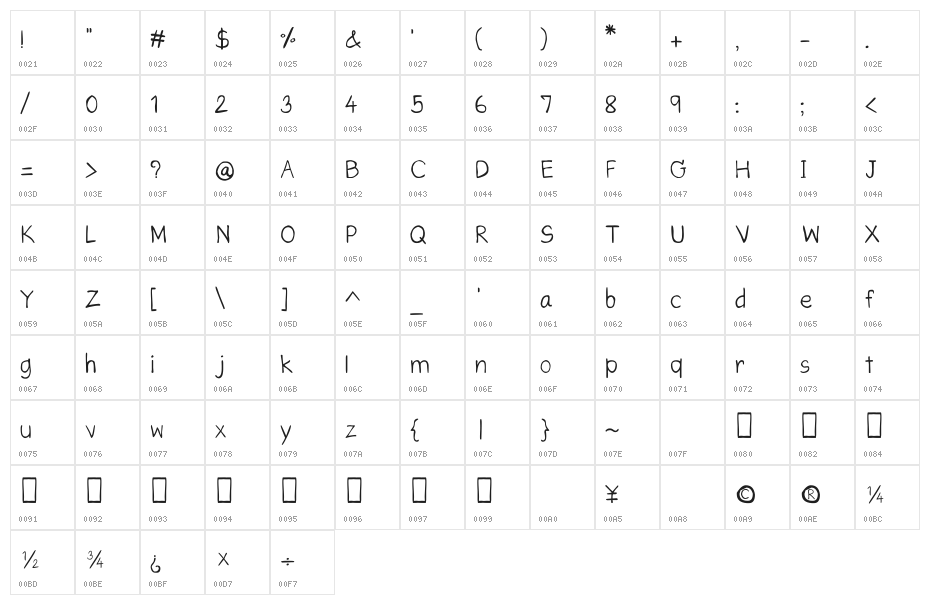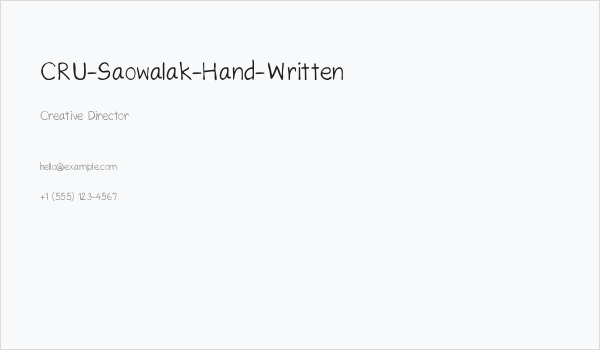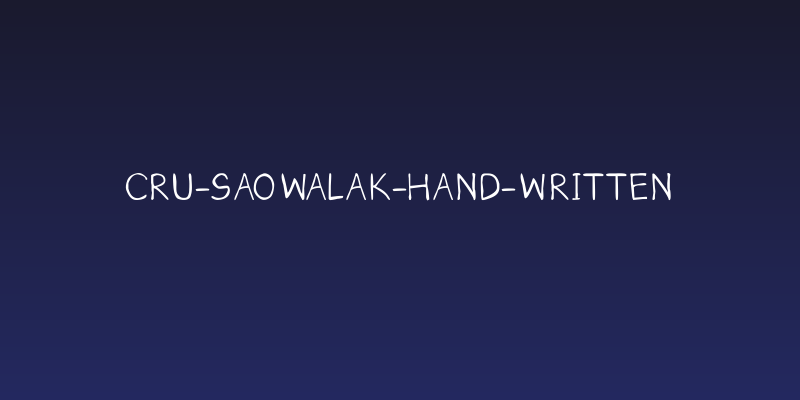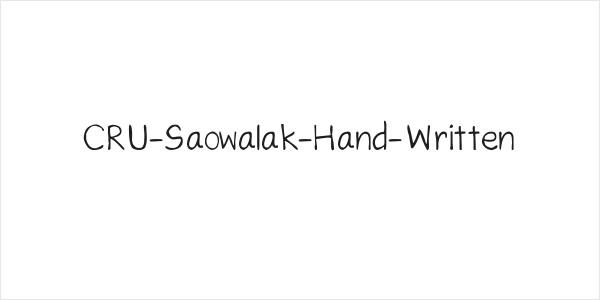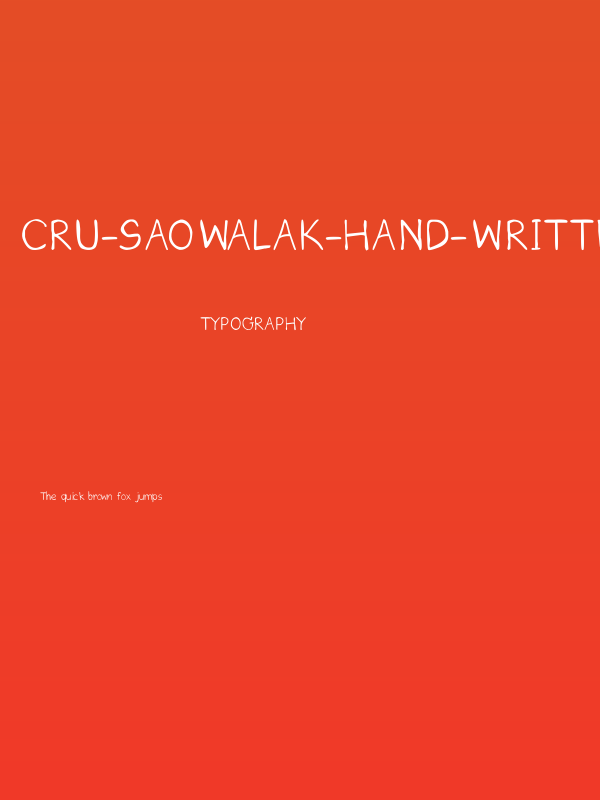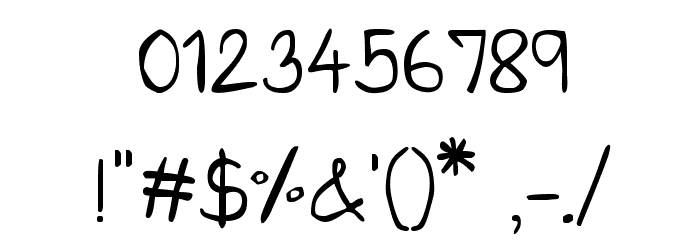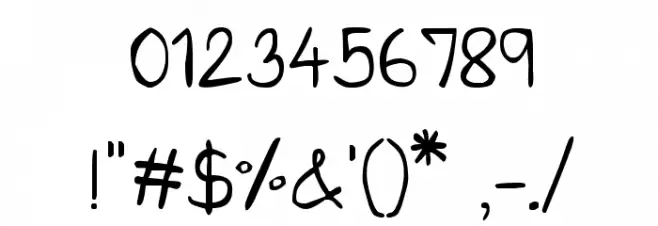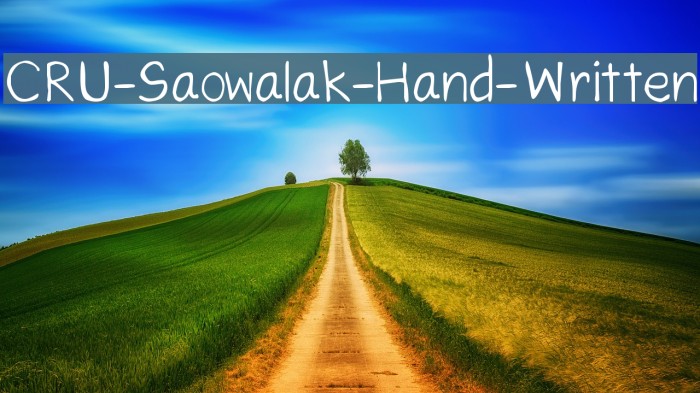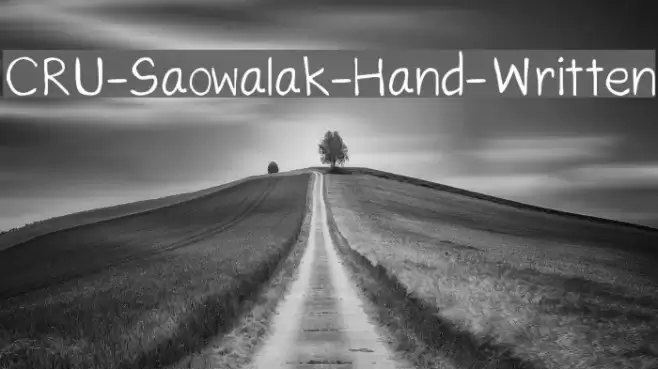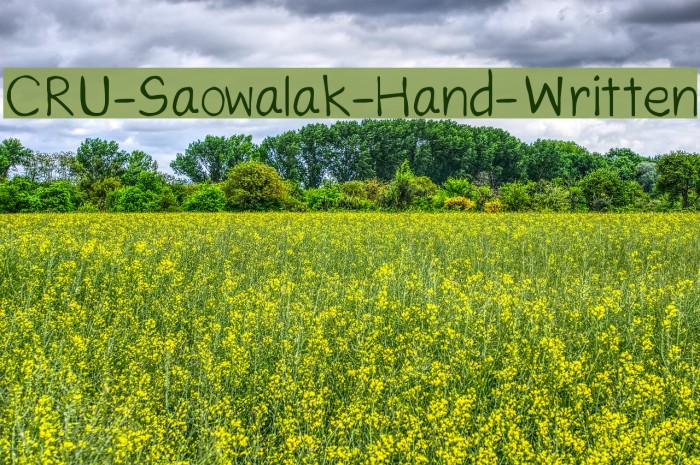
CRU-Saowalak-Hand-Written Font
CRU-Saowalak-Hand-Written Description
This font exudes a playful and casual handwritten style, characterized by its uneven strokes and organic flow. The letters are slightly irregular, giving it a personal and informal touch, reminiscent of a natural handwriting style. The uppercase and lowercase letters maintain a consistent look, with rounded edges and a slight tilt that adds to its charm. The numerals and special characters follow the same whimsical design, making it versatile for various creative projects. Its unique style makes it stand out, perfect for adding a personal touch to any design.
| Overall Style | Casual, Playful |
| Use Case | Headlines, Informal text, Creative projects |
| Proposed Projects | Ideal for greeting cards, personal notes, children's books, and creative branding projects. |